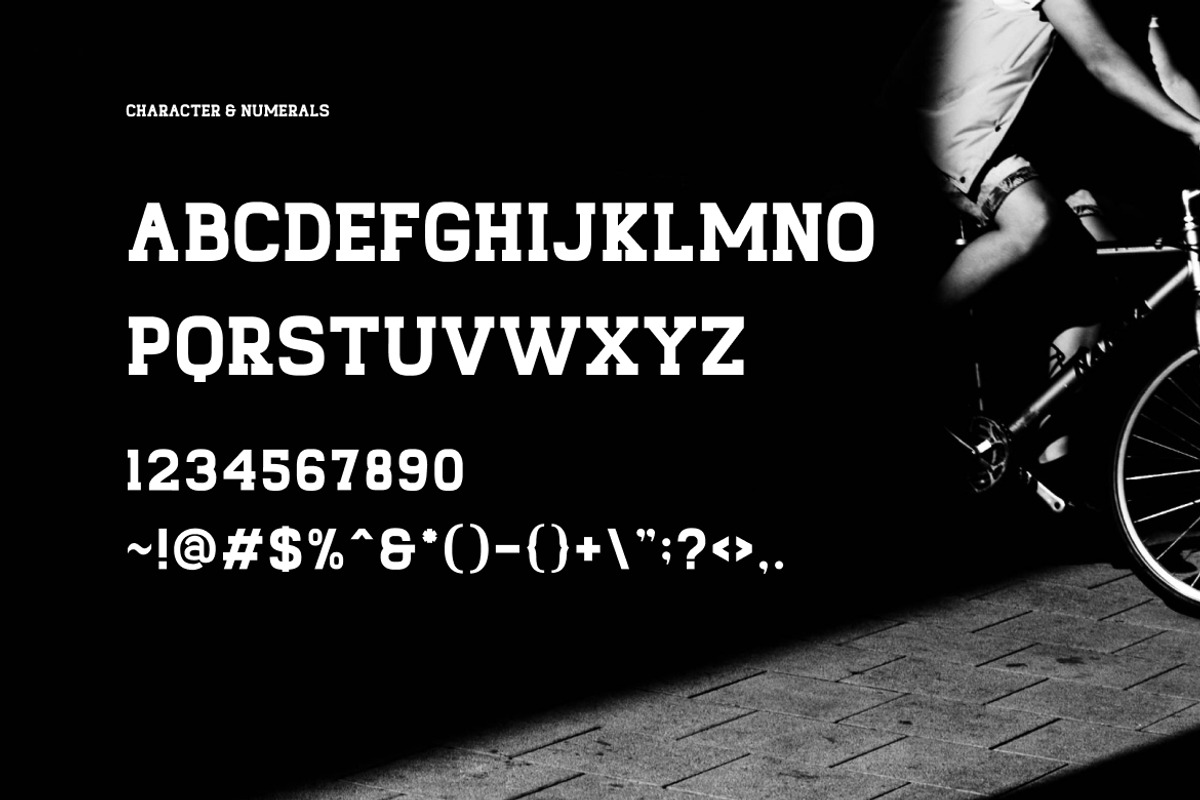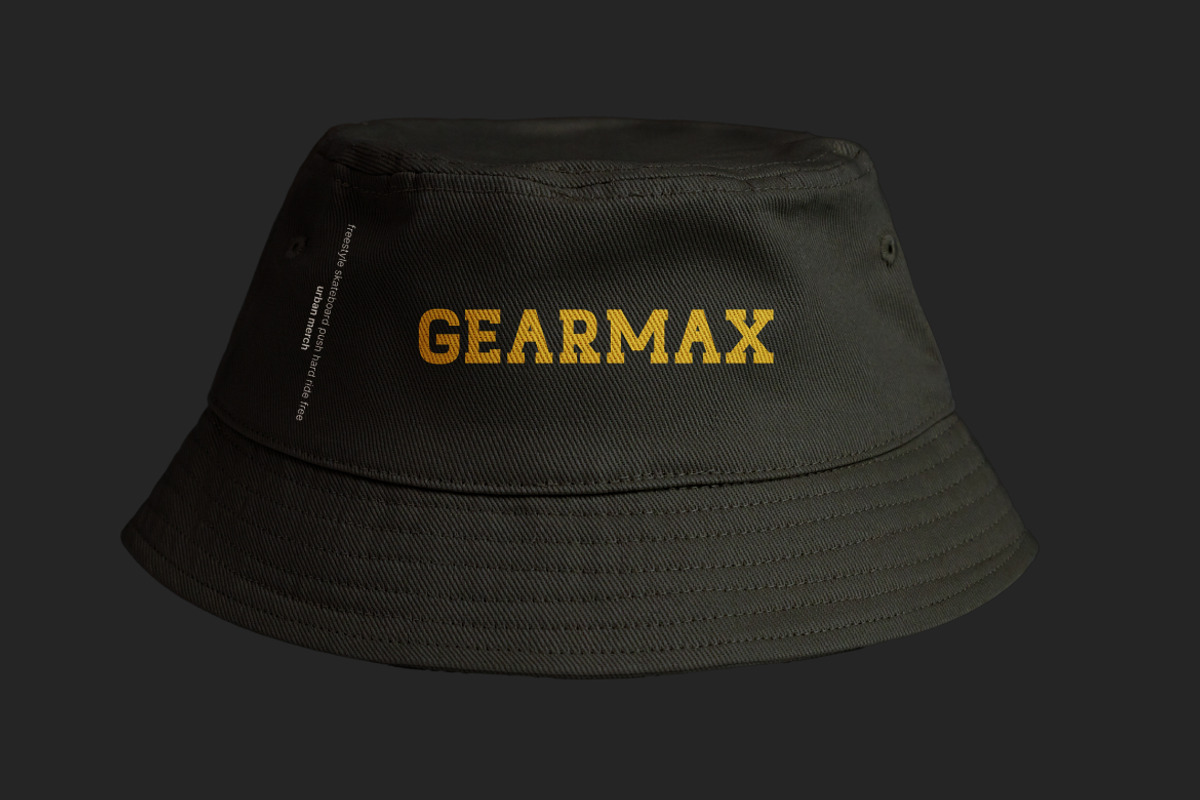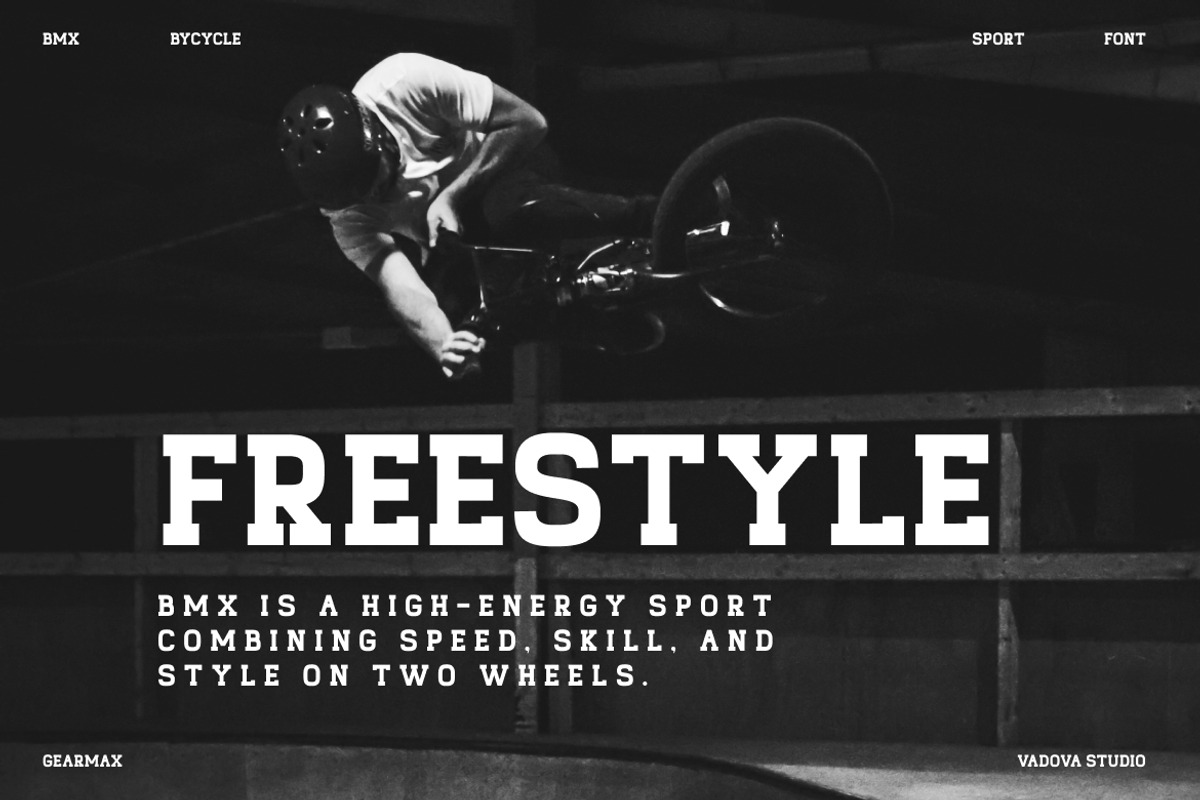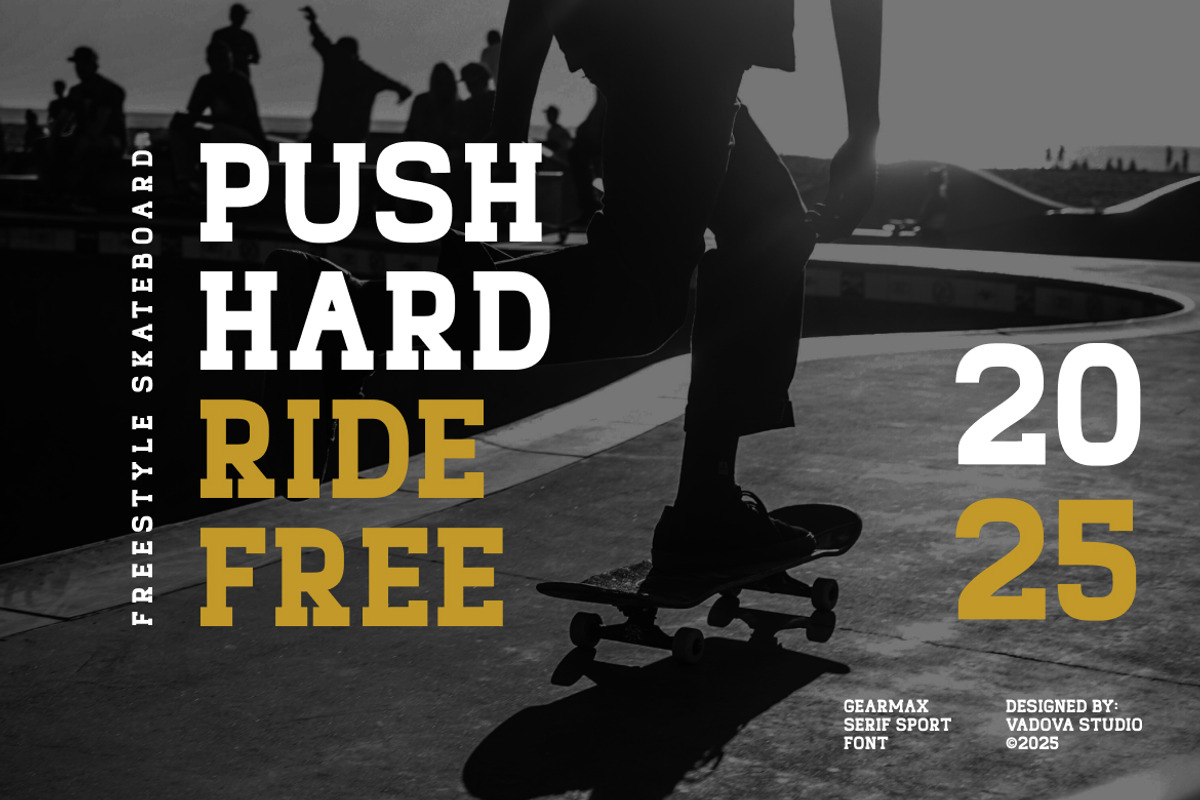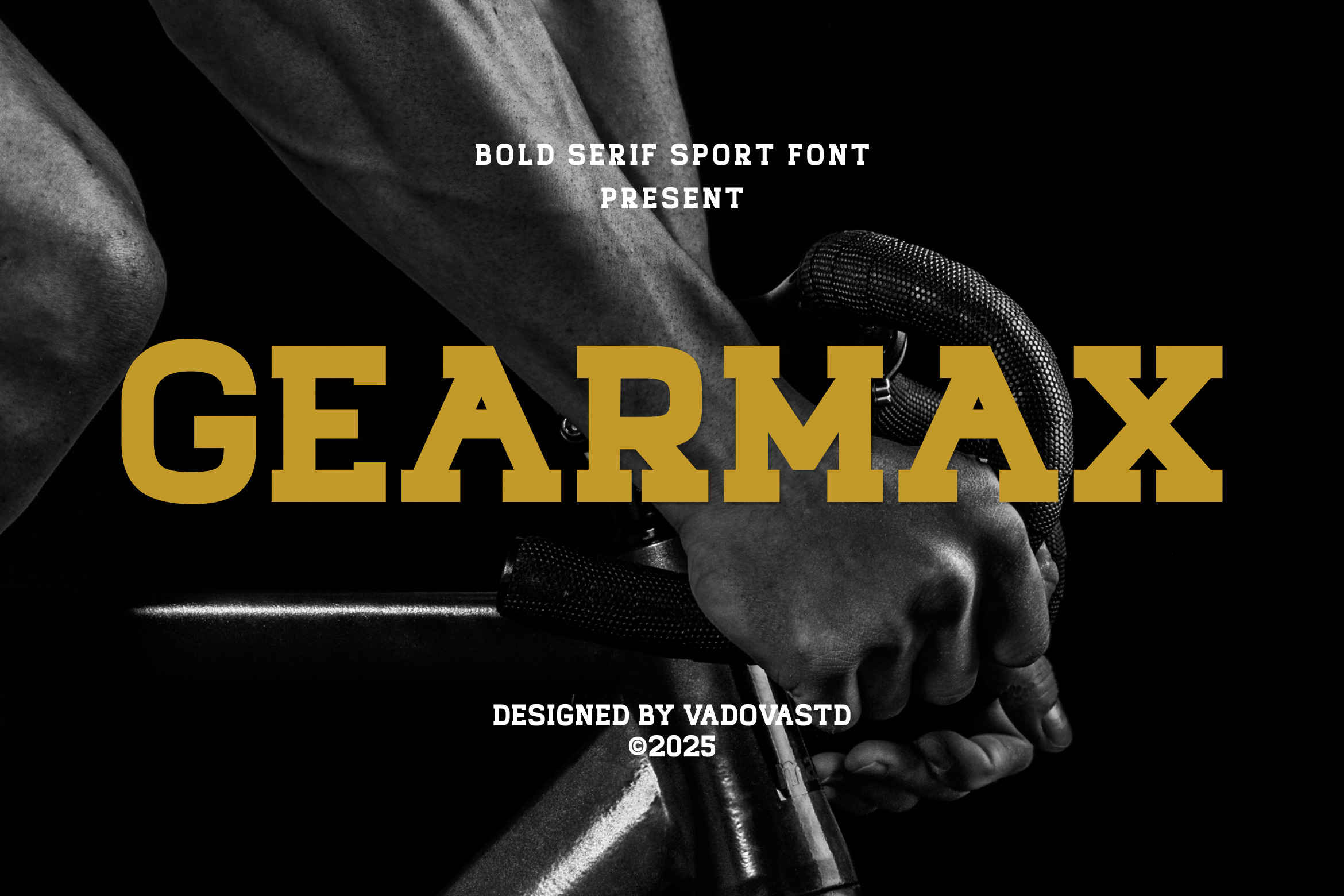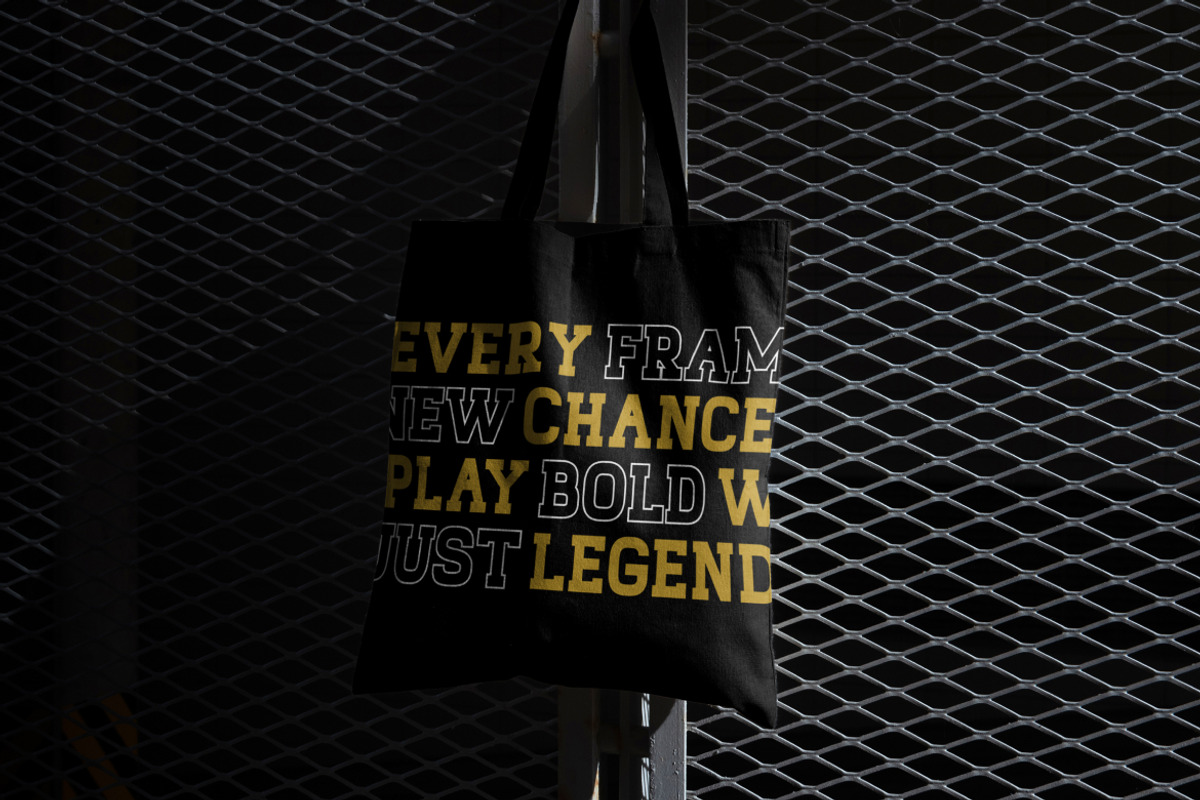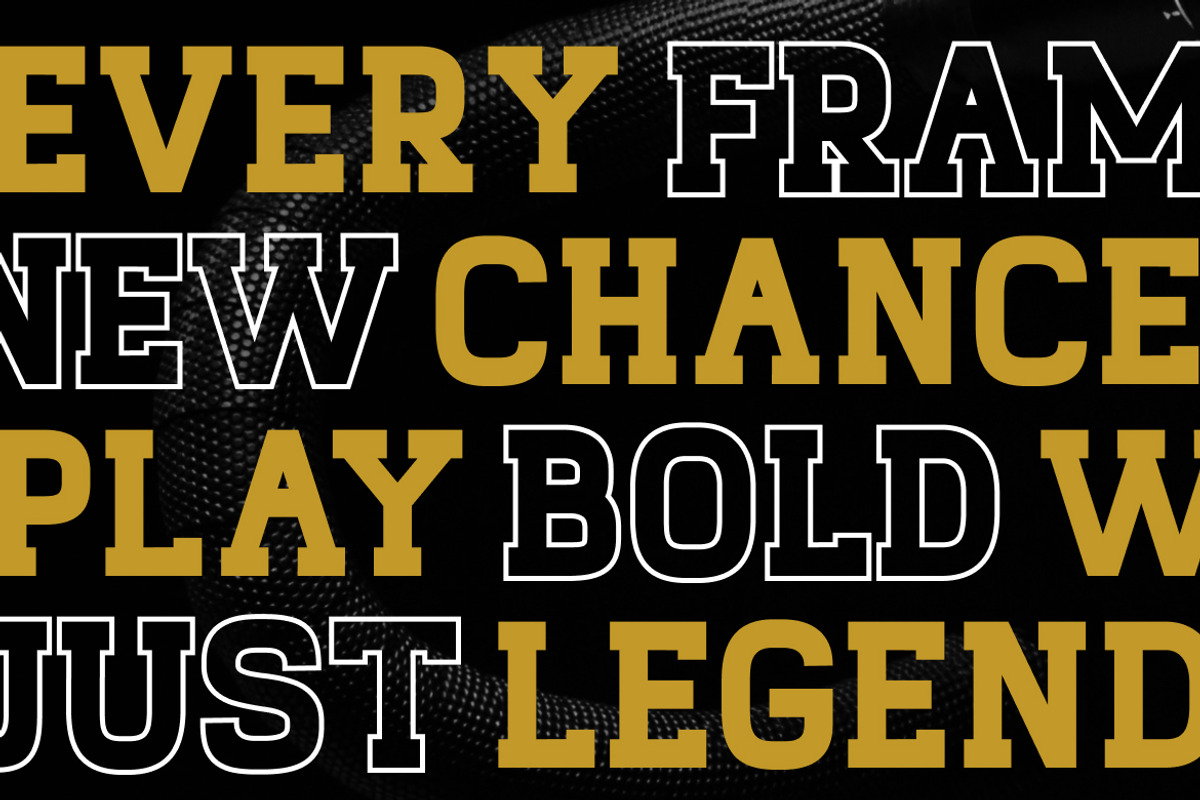
Gearmax Bold Serif Sport Font
Gearmax is a bold, action-driven sport font designed to embody pure strength and motion. Its heavy-weight characters and sharp edges are inspired by the intensity of competitive sports—perfect for athletic apparel, sports posters, team branding, and urban streetwear designs. Whether you're crafting football promotions, baseball league banners, or dynamic skateboarding visuals, Gearmax delivers a punch of energy and boldness with every letter. Built for high-impact visibility and fast-paced design environments, this typeface commands attention both on and off the field.